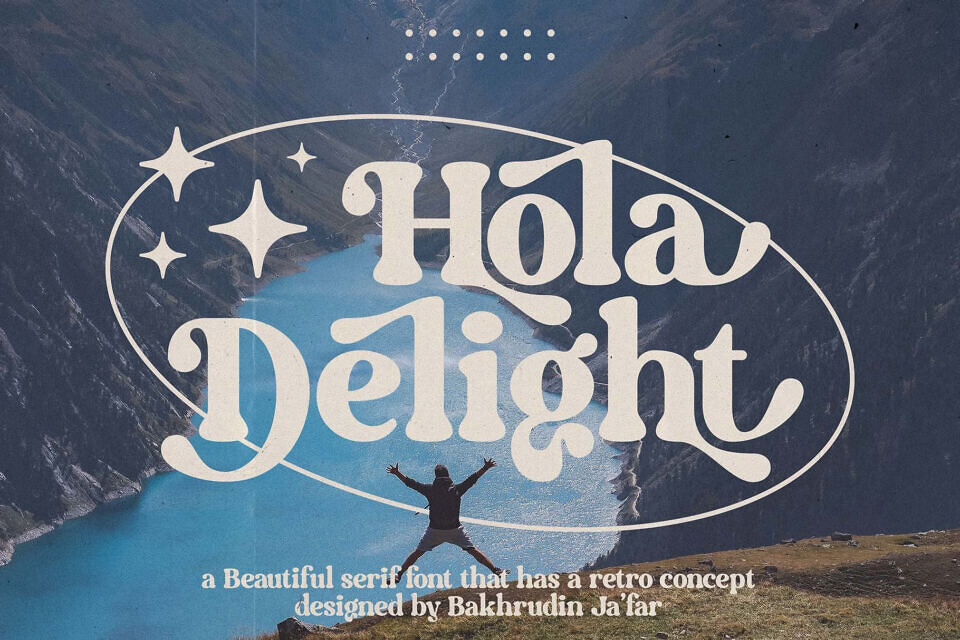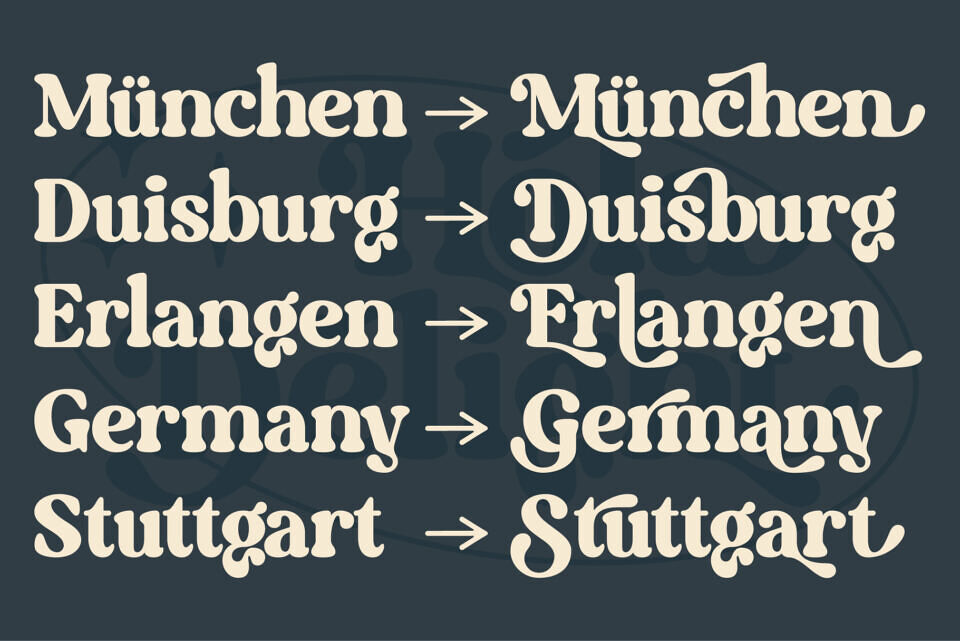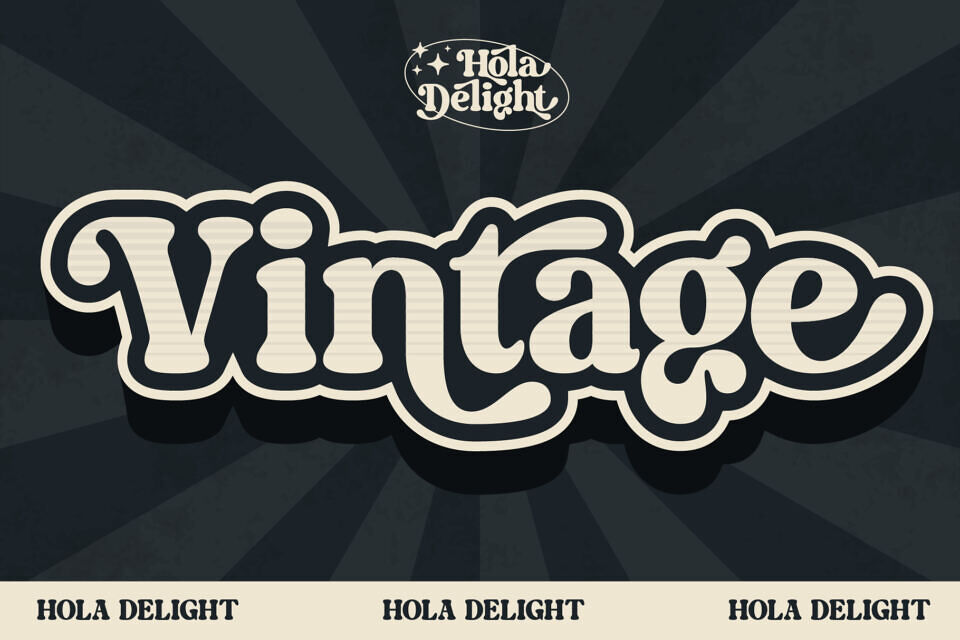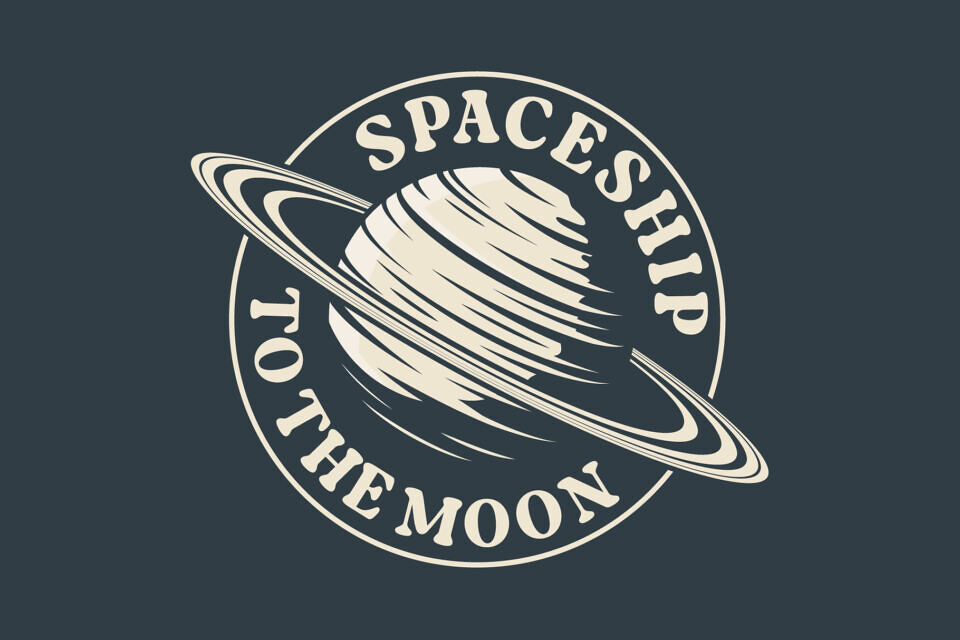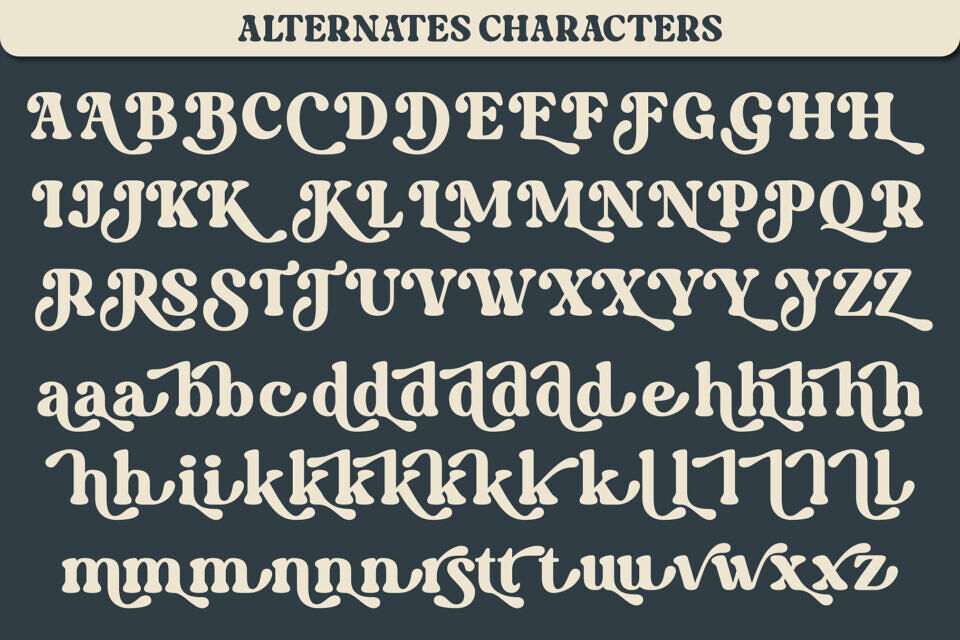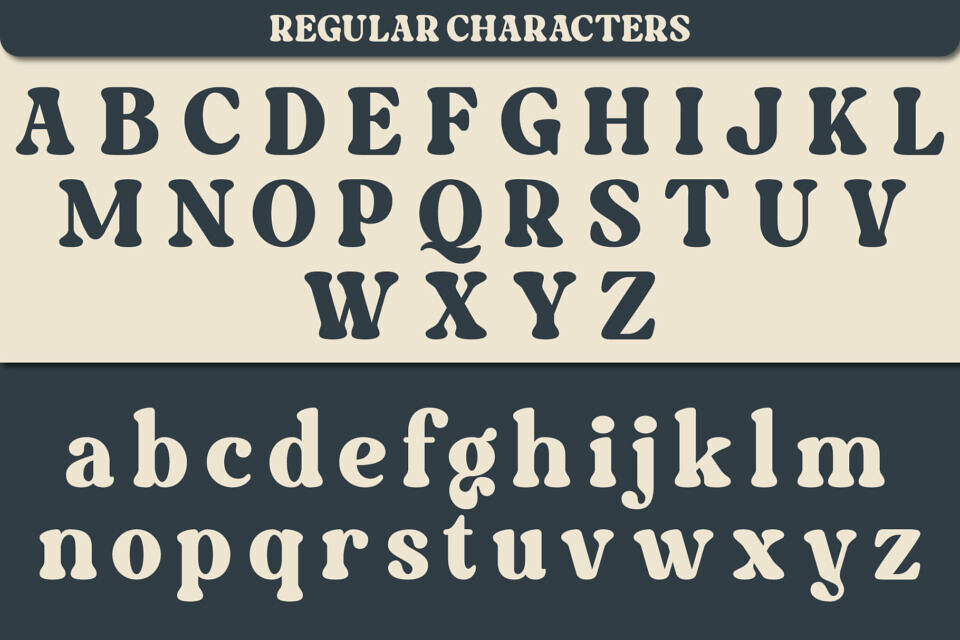
Hola Delight Font
Hola Delight is a charming retro serif font that brings a sense of warmth and nostalgia to every design. With soft curves, playful terminals, and a distinctly vintage vibe, it captures the joyful essence of classic typography from the ‘70s era. Each letter is carefully crafted to create a balance between bold character and smooth elegance, making Hola Delight an ideal choice for designers seeking a blend of personality and sophistication.
This typeface shines in both digital and print formats, offering versatility for logos, posters, coffee shops, packaging, travel magazines, creative campaigns, and editorial layouts. The retro-inspired shapes and high readability give it a timeless appeal that fits perfectly in modern design trends. Whether you want to evoke feelings of adventure, happiness, or creative energy, Hola Delight helps you tell your story beautifully.